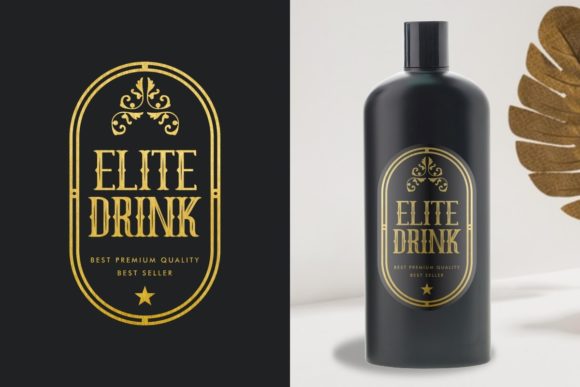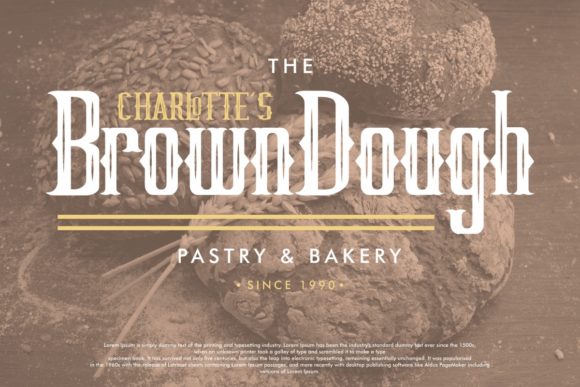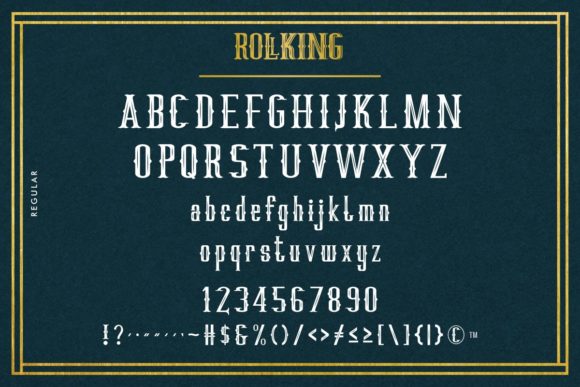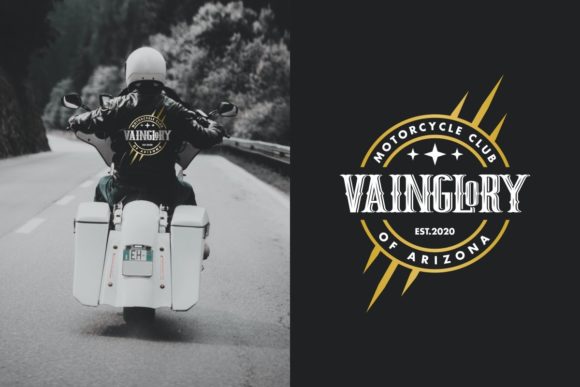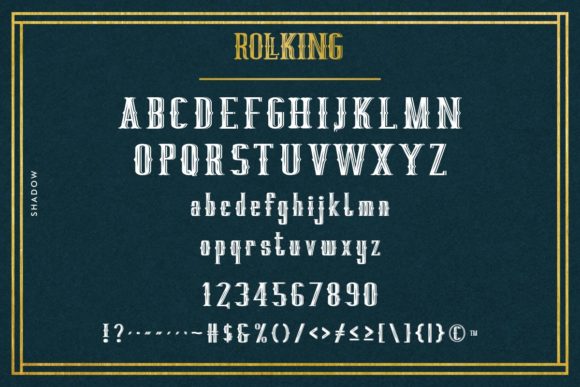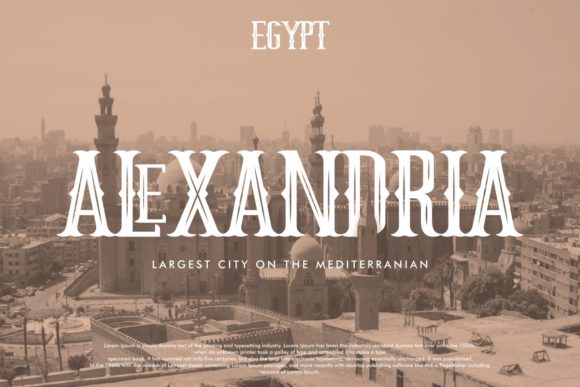
Introduction to RollKing Font
RollKing is a highly unique and vintage styled display font.
This font is imposing and features uniquely shaped letters, and as a result, it will easily match a wide range of creations that require a distinct touch .